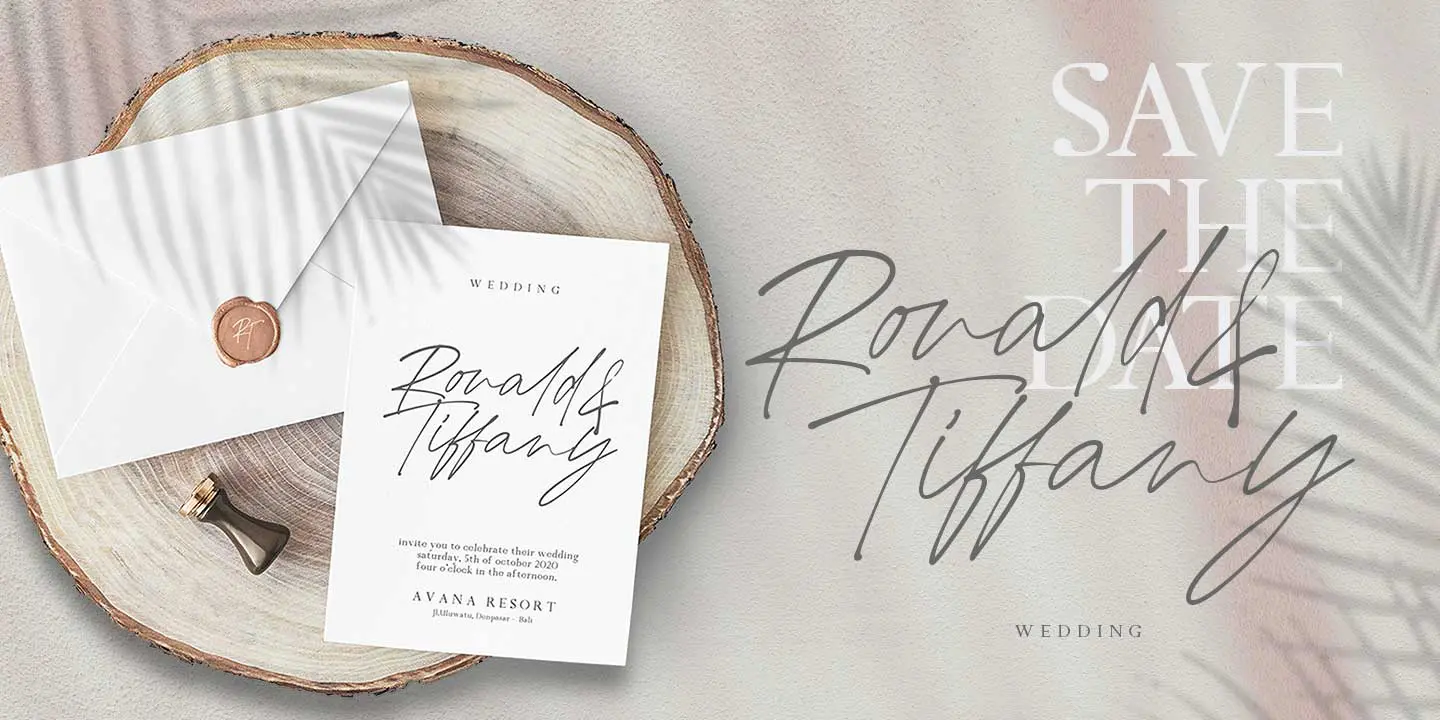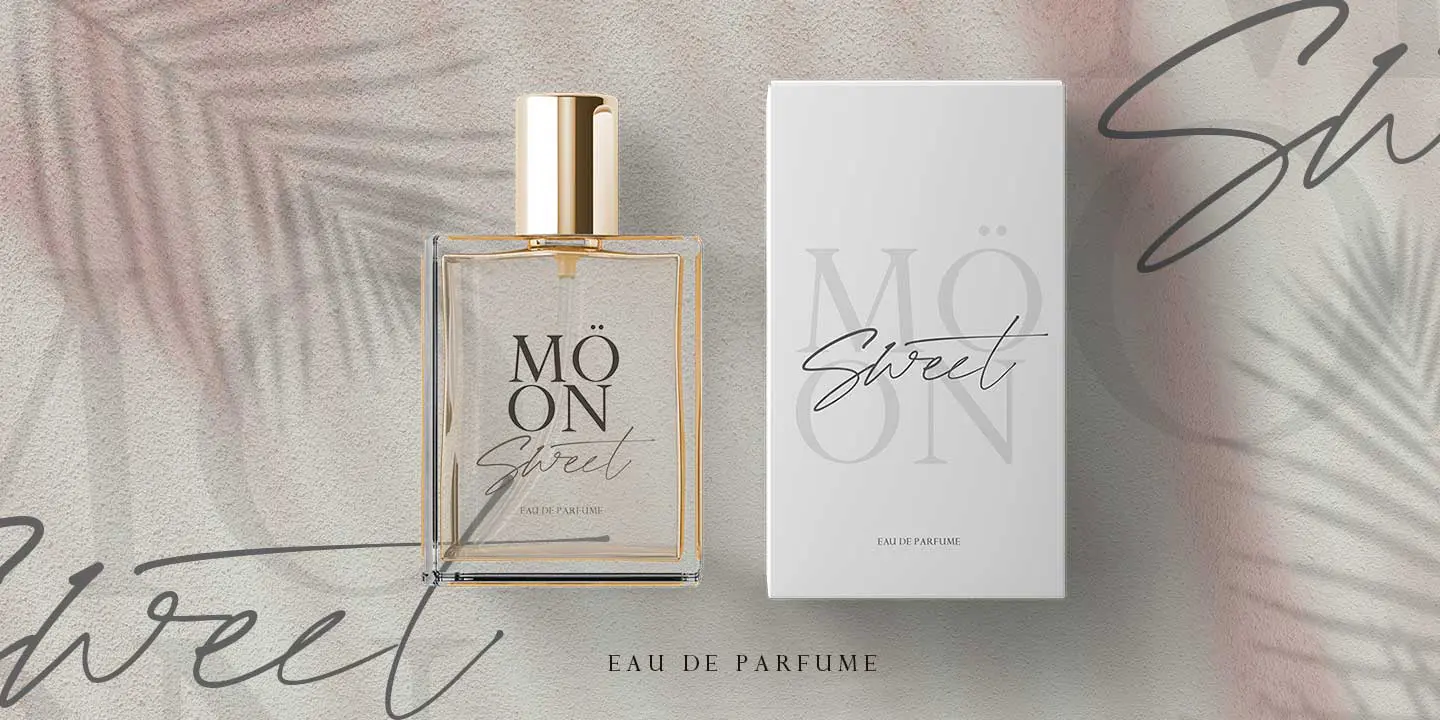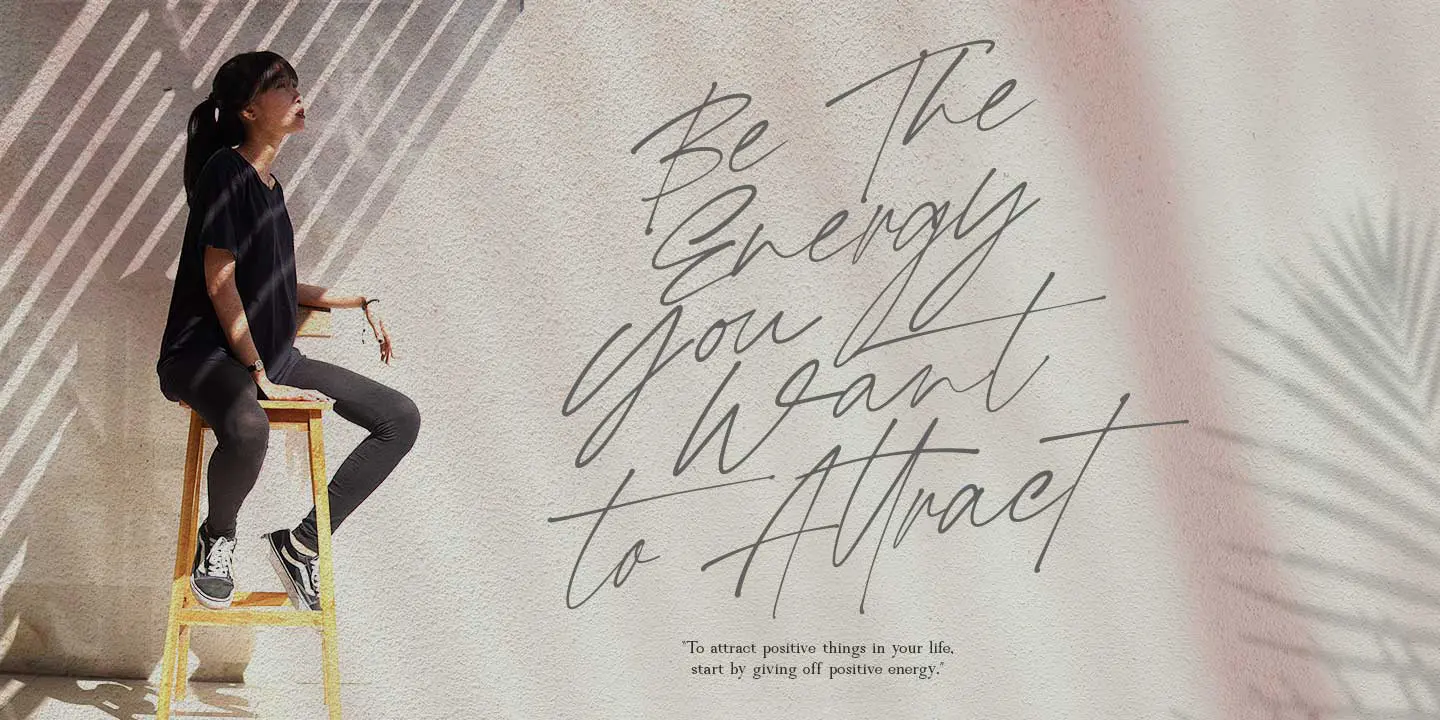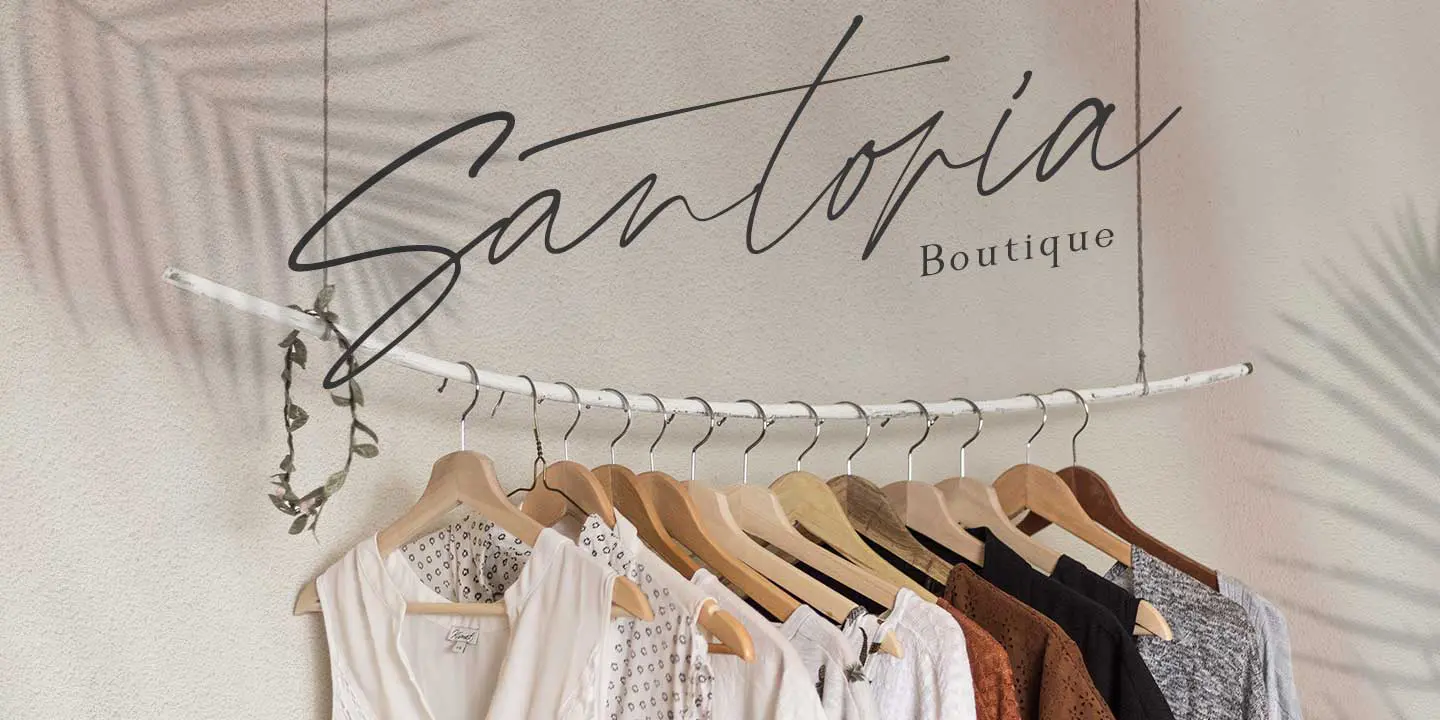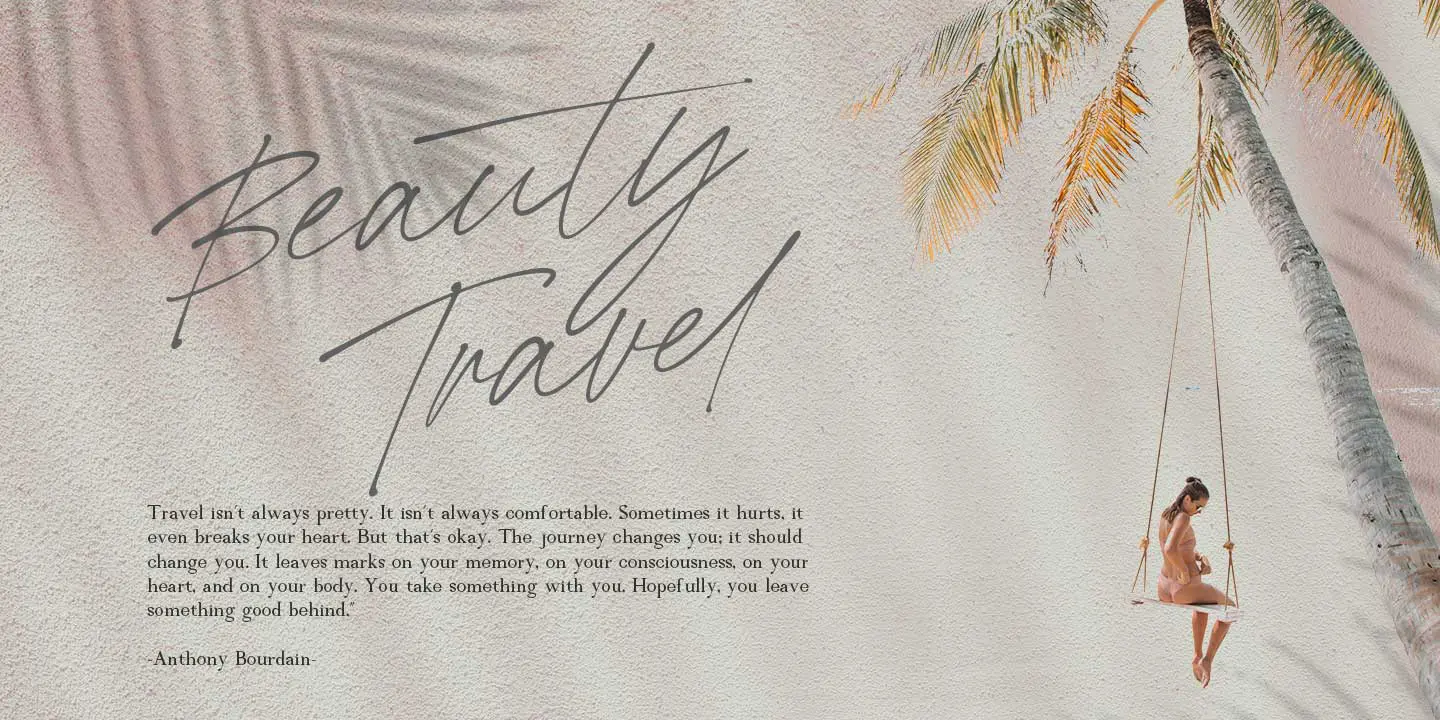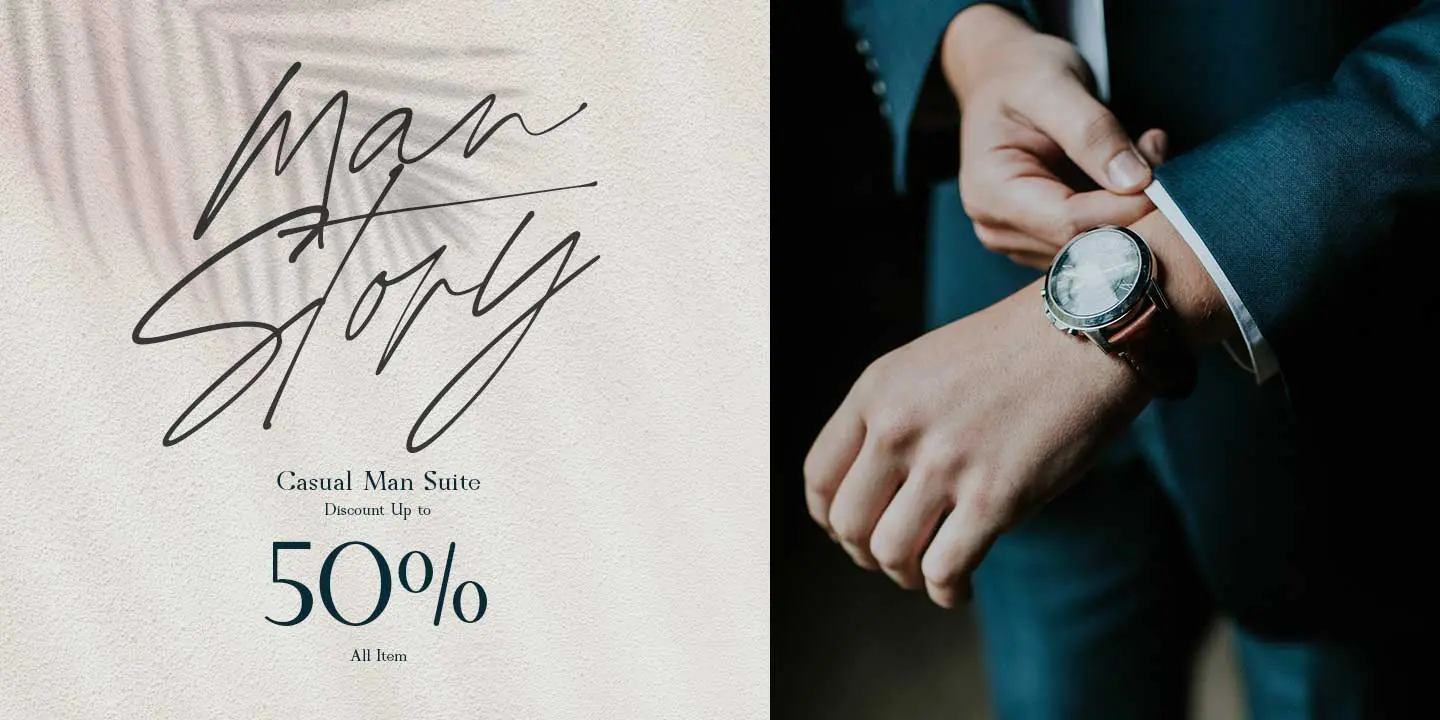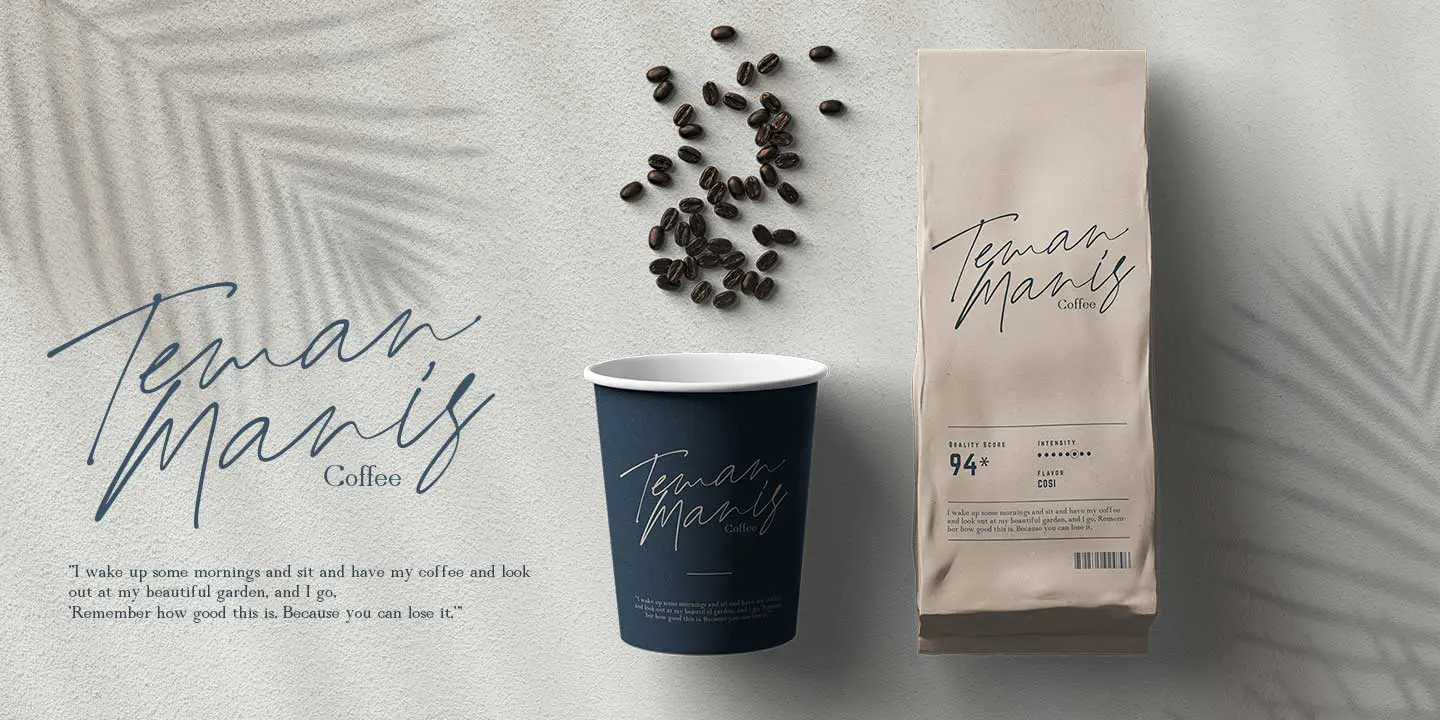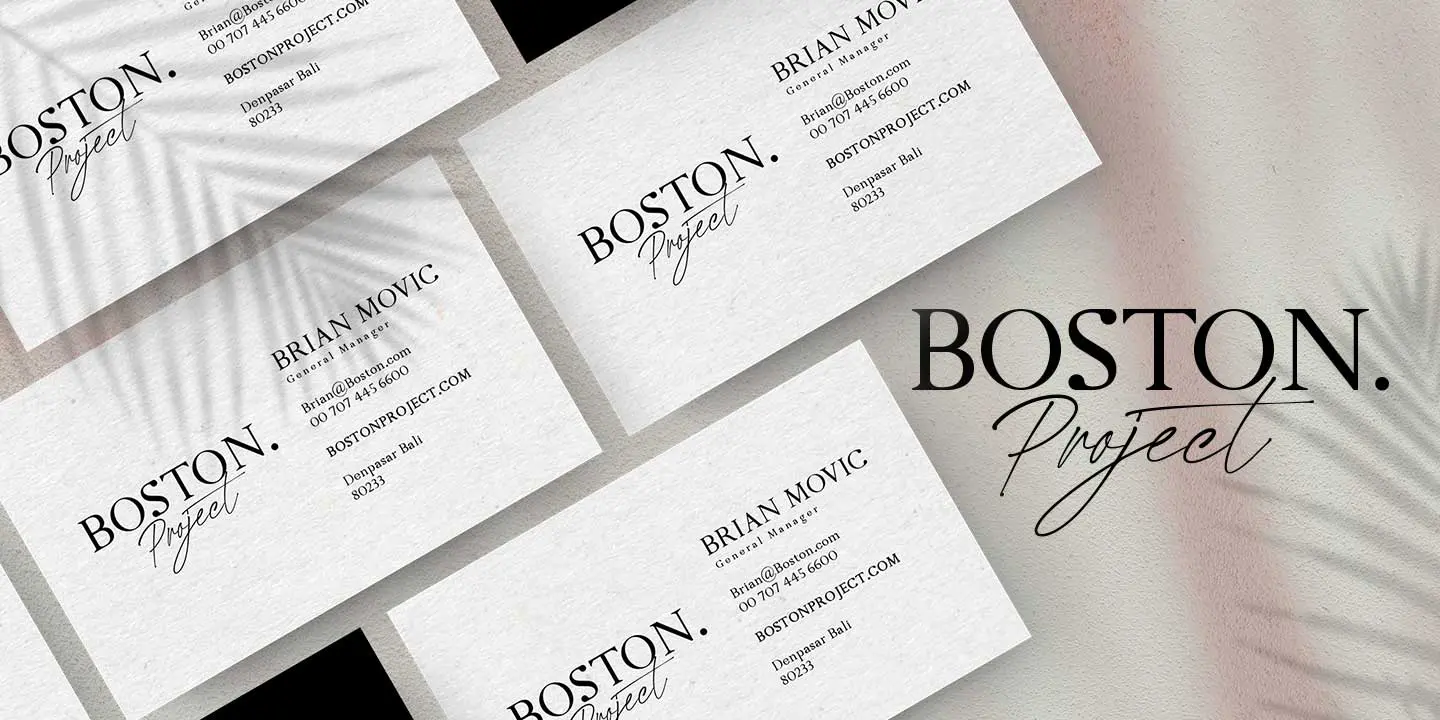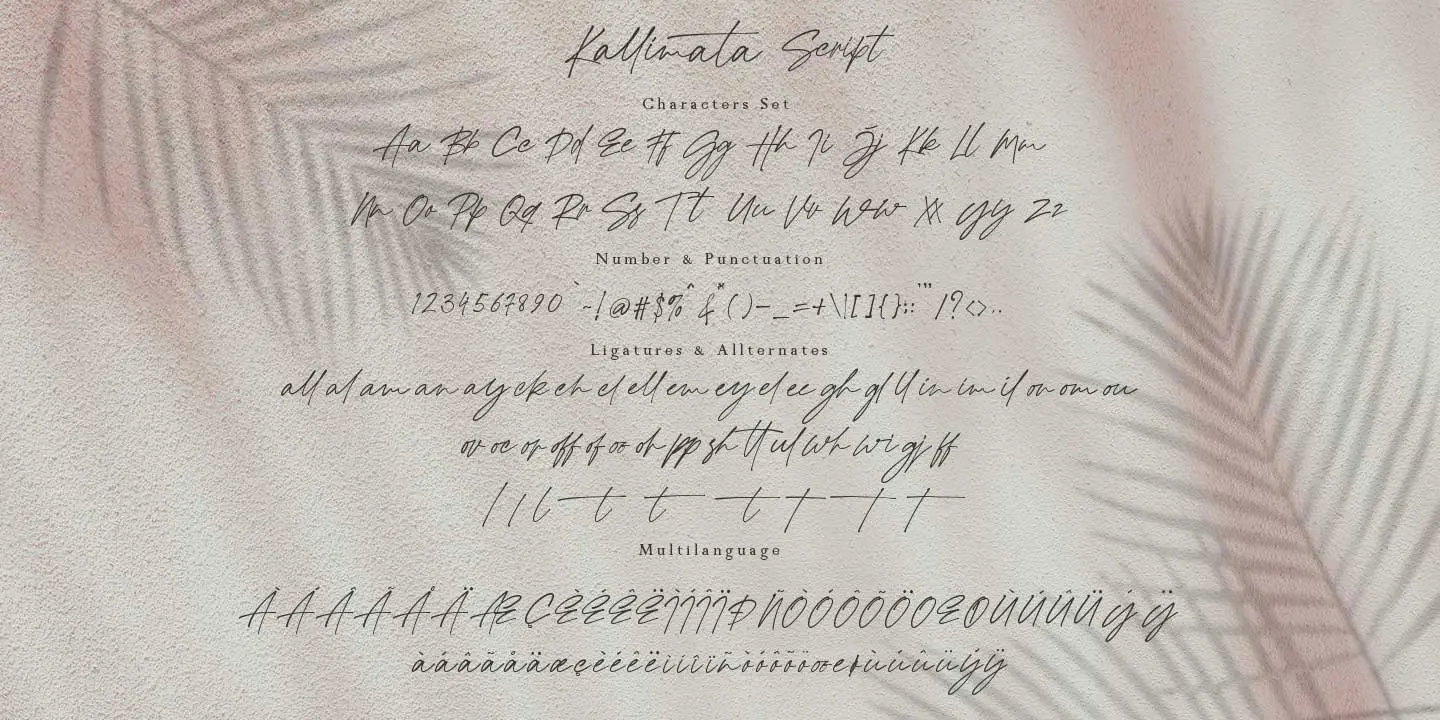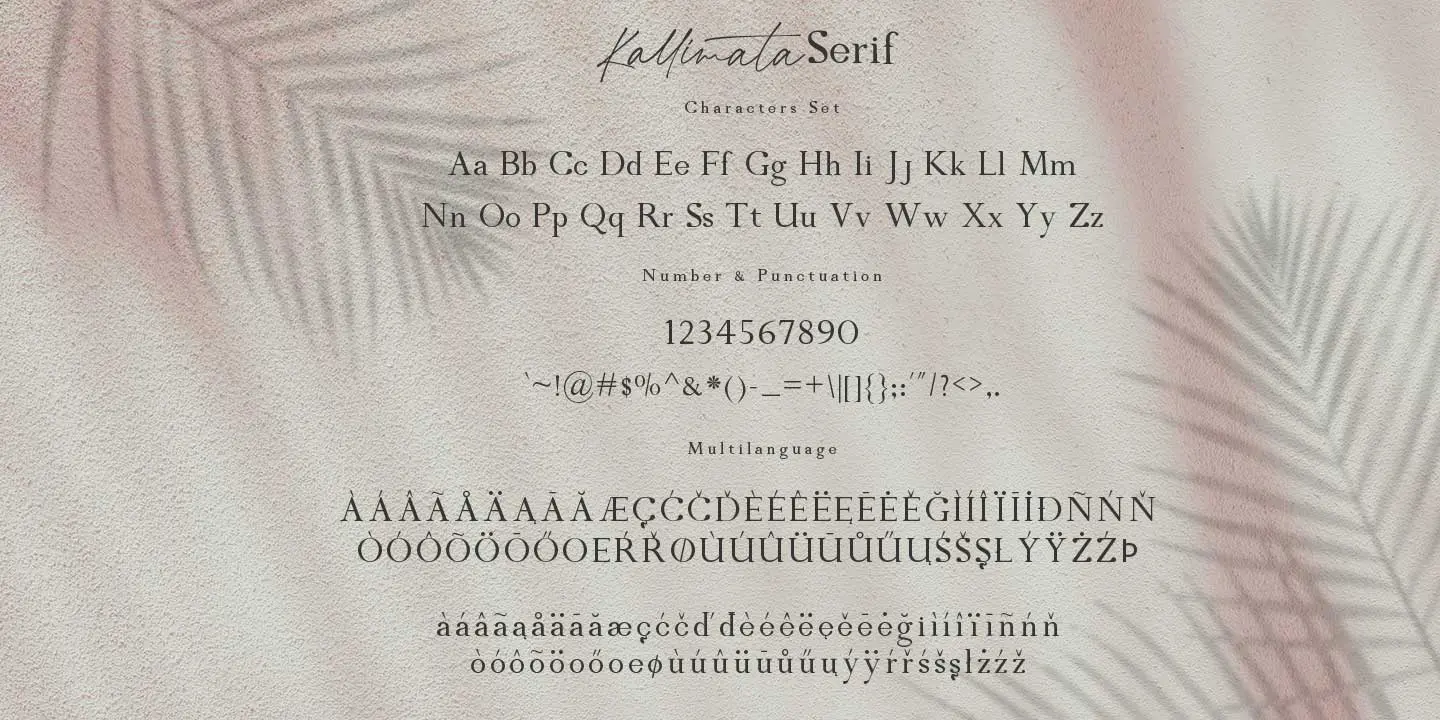
Modern Kallimata
2 Styles
Modern Kallimata is made with natural hand scratches so Modern Kallimata is suitable for use to enhance your design. Modern Kallimata has 2 styles including Script and Serif fonts to make perfect paired fonts, Kallimata scripts have a very natural texture that gives the impression of a natural streak on each of your designs and Kallimata Serif is made to complement the Kallimata scripts to make them look more beautiful. and suitable to be described as a font unit. Modern Kallimata is also accompanied by Alternative characters that embellish every scratch from Modern Kallimata. Modern Kallimata is the perfect choice to use for poster designs, signatures, logos, quotes, album covers, business cards, product designs, and many other design projects. Modern Kallimata has its own charm when used. We make this font look elegant, classy, easy to read, stylish, easy to remember, and easy to use.
Foreign languages support : àáâãäåæçèéêëìíîïðñòóôõöøùúûüýÿ
• al al
• am am
• an an
• ay ay
• ch ch
• ck ck
• cl cl
• ee ee
• el el
• em em
• ey ey
• gh gh
• gj gj
• gl gl
• il il
• im im
• in in
• oc oc
• of of
• oh oh
• om om
• on on
• oo oo
• or or
• ou ou
• ov ov
• pp pp
• sh sh
• ul ul
• wh wh
• wi wi
• all all
• ell ell
• off off